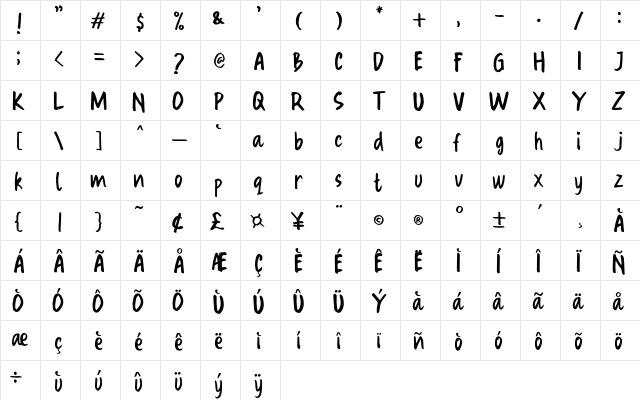
OraRet Regular Font Preview
OraRet Regular
OraRet Regular Font Details
| Foundry | Andi Winarno-INKsTYPIA |
Design Context for OraRet Typeface
OraRet is a composed and adaptable typeface that performs quietly and consistently across a wide range of design contexts.